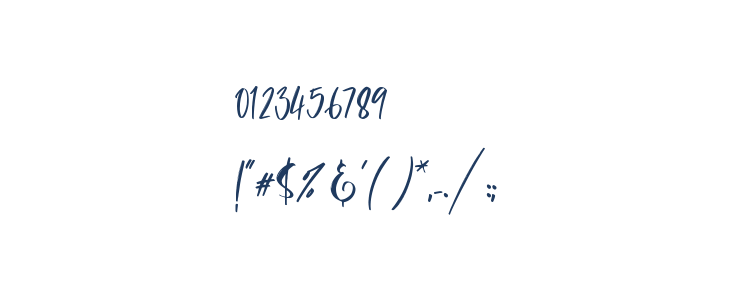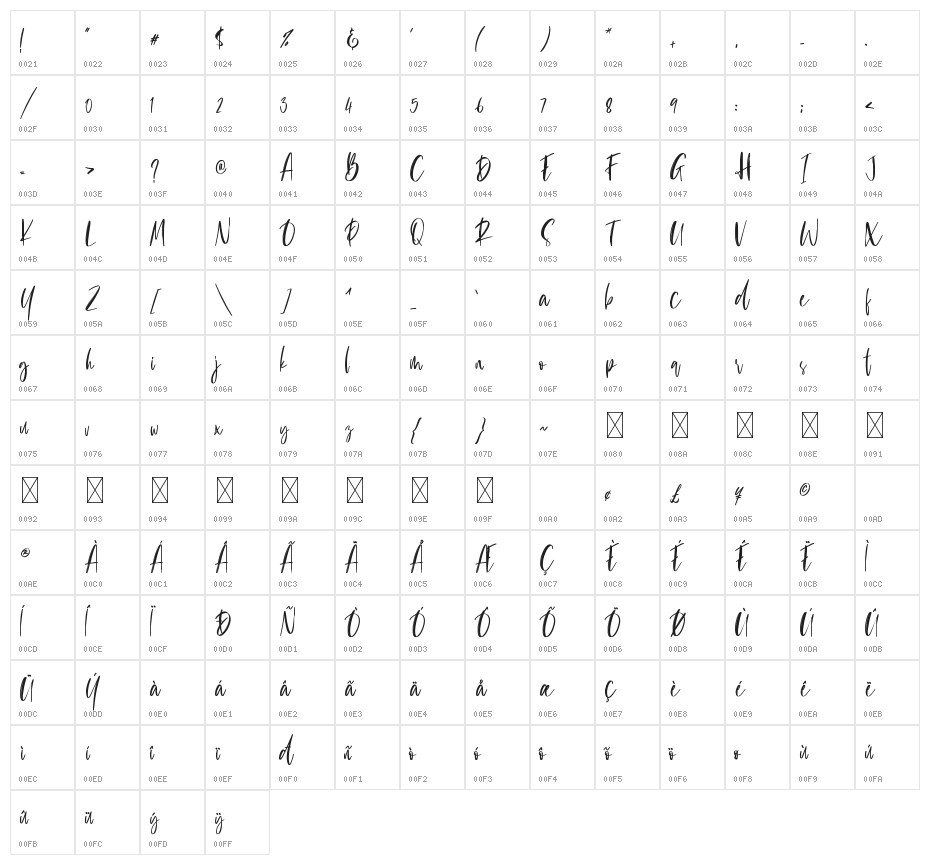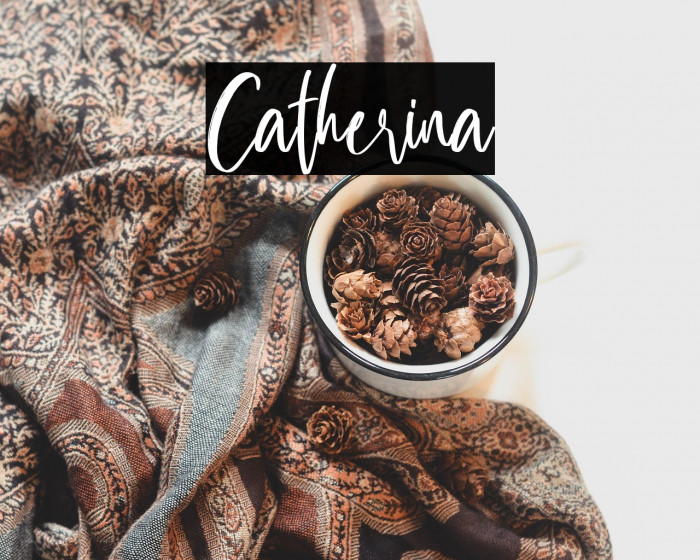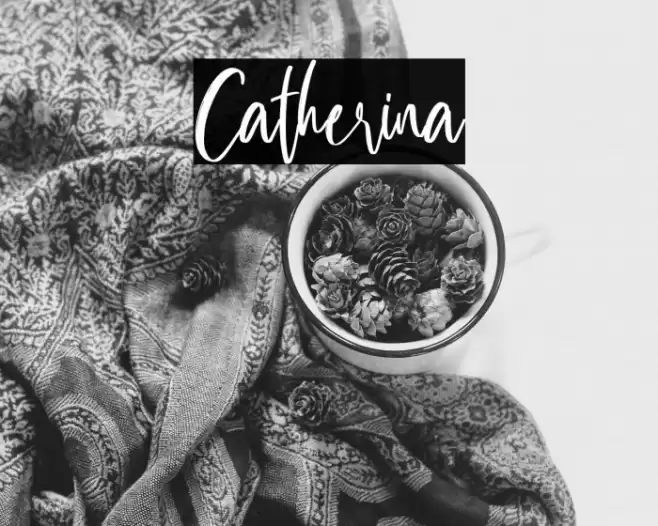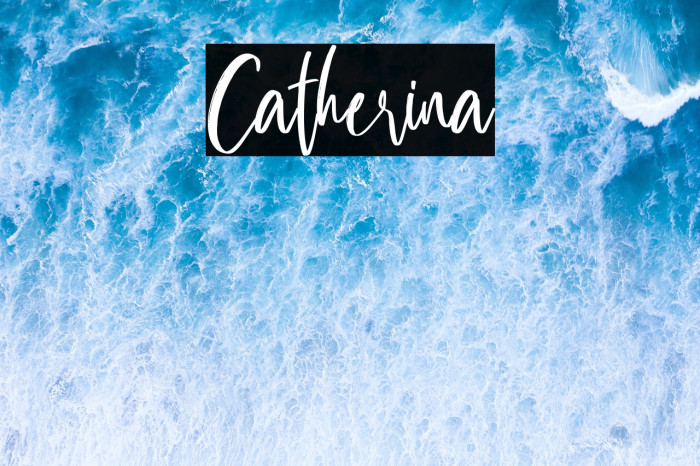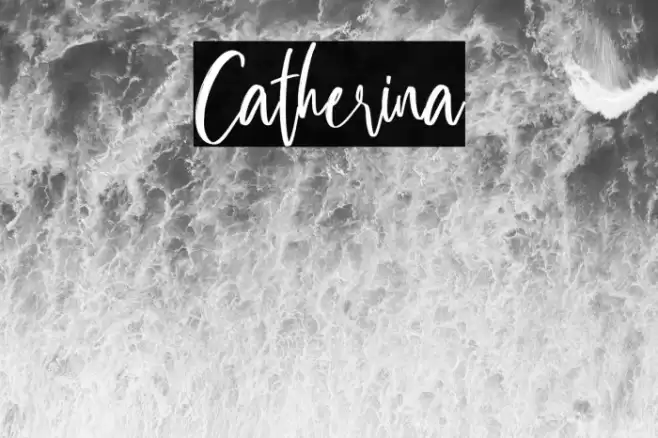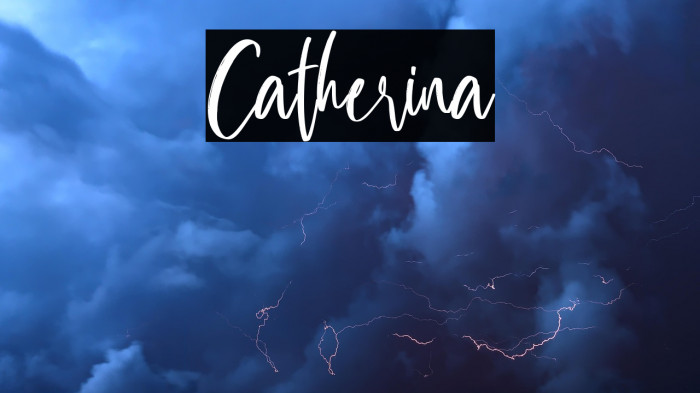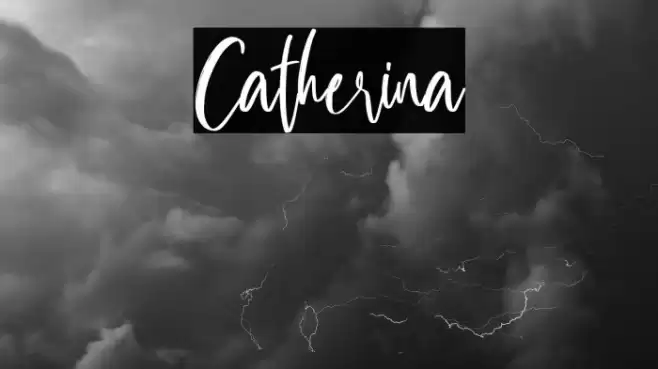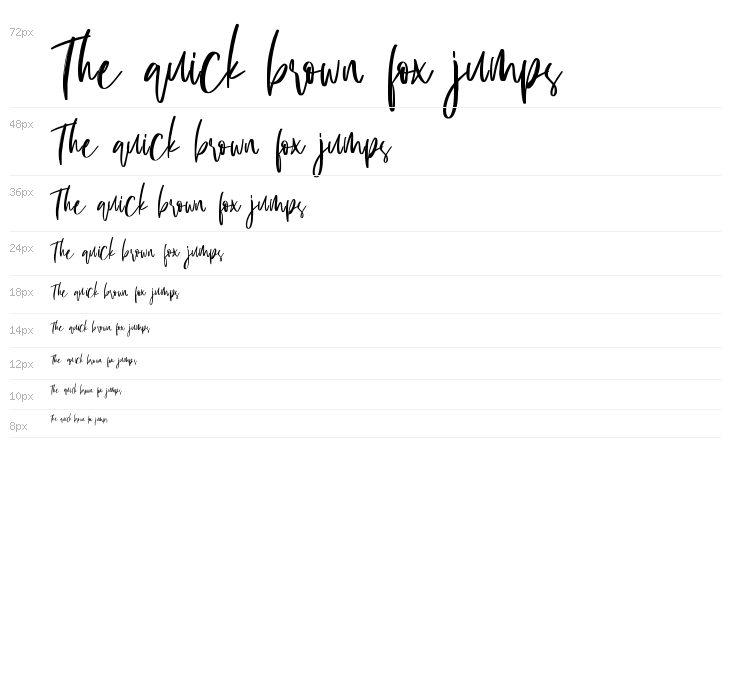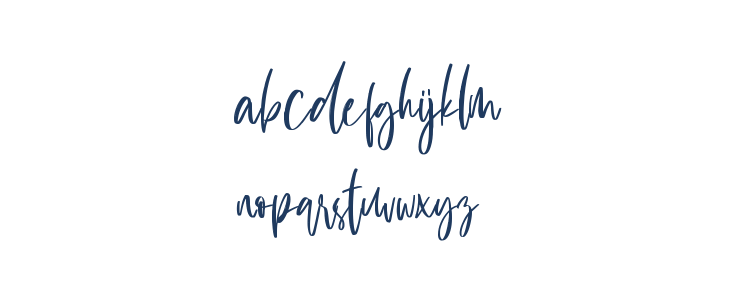
Catherina Font
Catherina Description
This font exudes a lively and expressive character, featuring a handwritten style with a modern twist. The letters are elegantly crafted with fluid strokes that vary in thickness, giving it a dynamic and artistic feel. The uppercase letters are bold and prominent, while the lowercase letters maintain a graceful flow, making it versatile for various design needs. The numerals and special characters are consistent with the overall style, ensuring a cohesive look across all text elements. This font is perfect for adding a personal touch to any project, combining readability with a unique flair.
Use CaseLogos, Headlines, Invitations
Proposed ProjectsIdeal for wedding invitations, greeting cards, branding, and social media graphics.